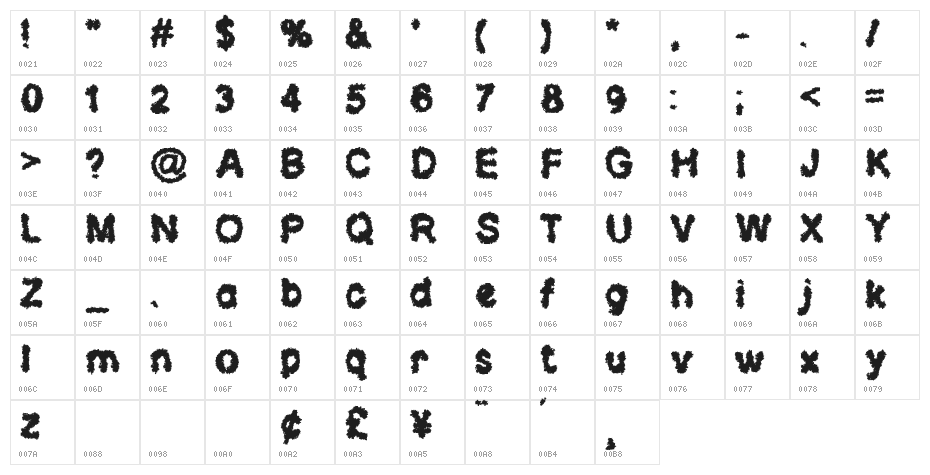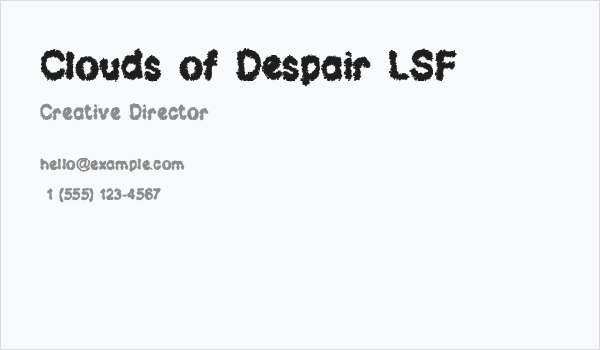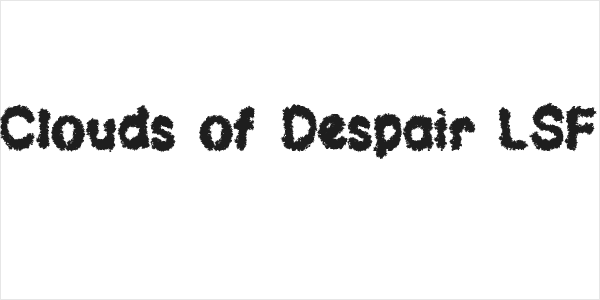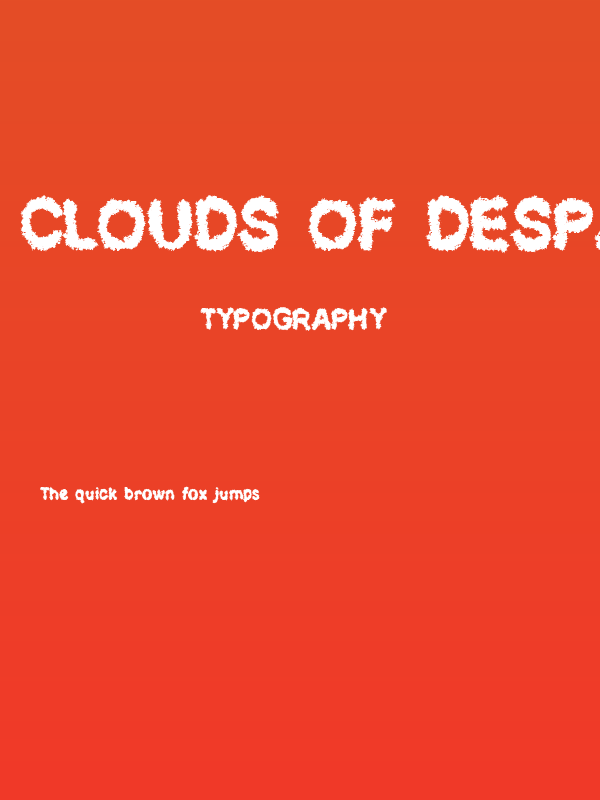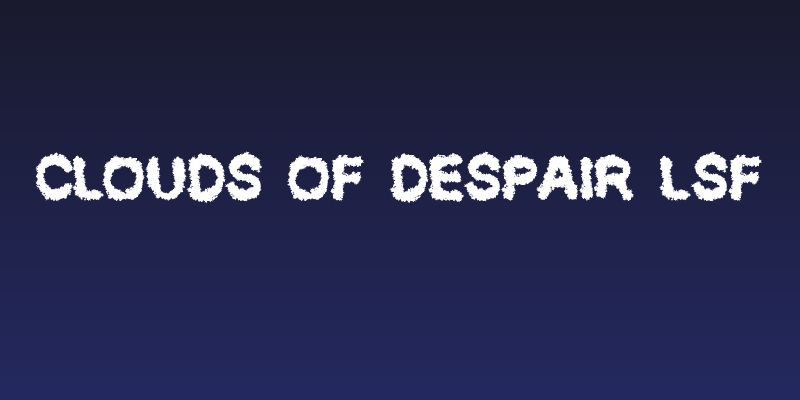
Clouds of Despair LSF Font
Clouds of Despair LSF Description
This font features a unique and textured design, reminiscent of clouds or smoke, giving it a distinct and artistic appearance. The characters are bold and heavily stylized, with rough, irregular edges that create a sense of movement and dynamism. This font is highly decorative, making it suitable for projects that require a strong visual impact. The uppercase and lowercase letters maintain a consistent style, while the numbers and special characters are equally expressive, ensuring a cohesive look across all text elements. The font's organic and somewhat chaotic style makes it ideal for creative and unconventional designs.
| Proposed Projects | Ideal for album covers, posters, artistic projects, and any design requiring a bold, creative touch. |